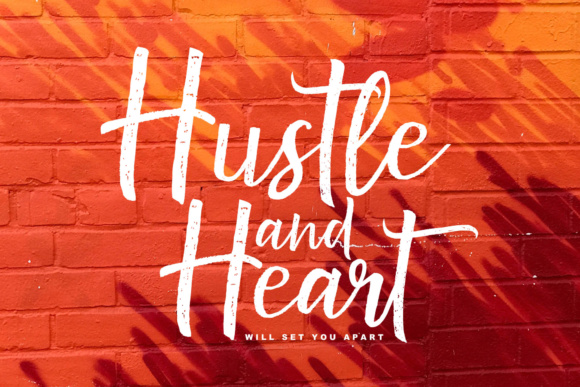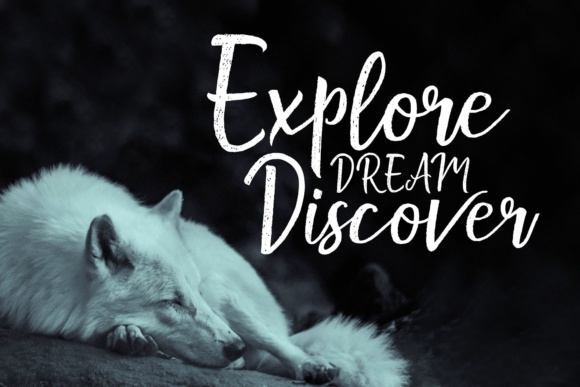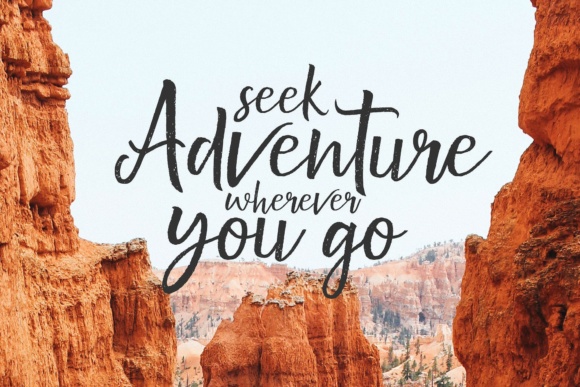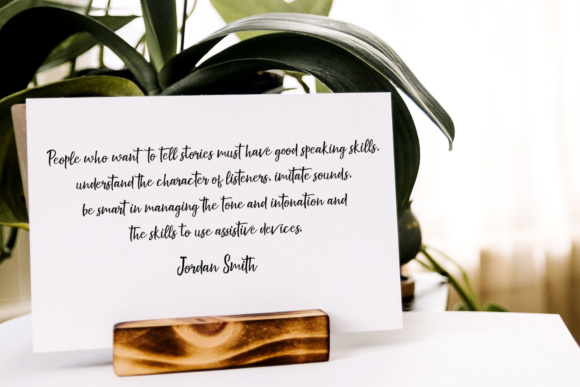
Jelly Fresh Font
About Jelly Fresh Font
Jelly Fresh is a cool textured brush font with a contemporary approach to design.
It has a irregular baseline and is completely handmade. Suitable for a large set of different designs.